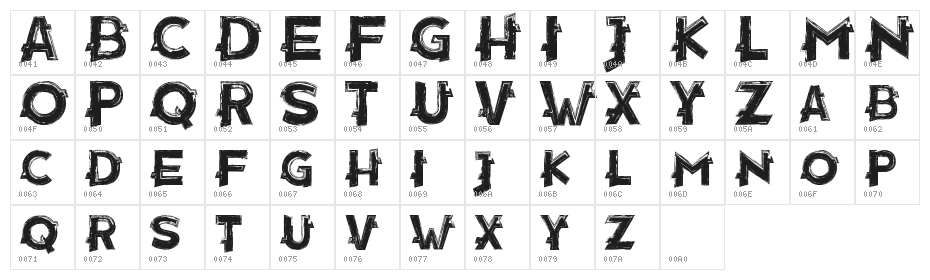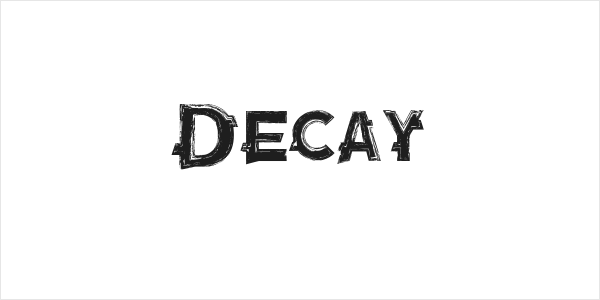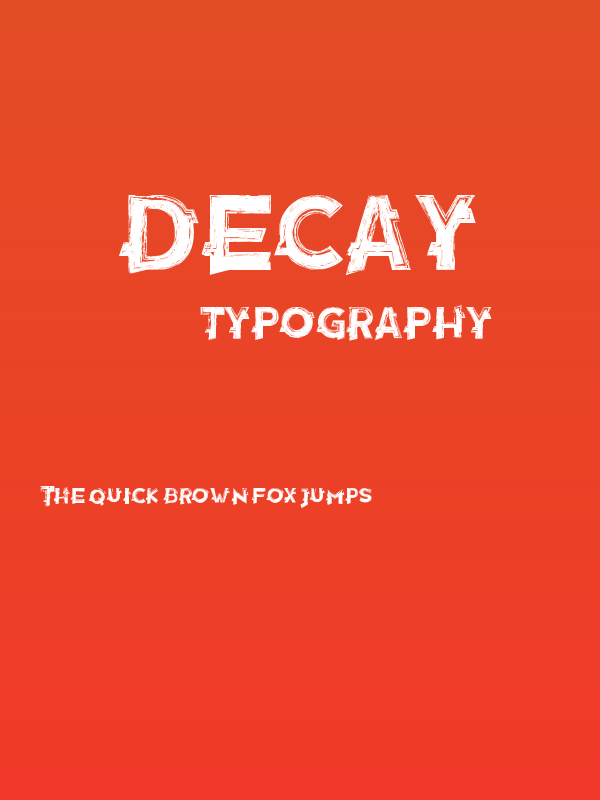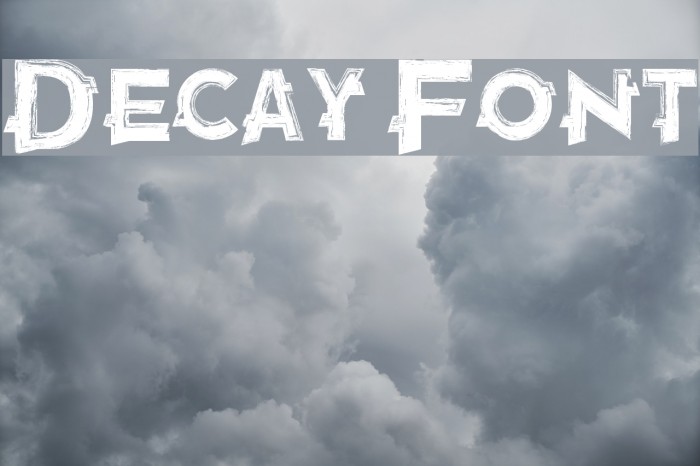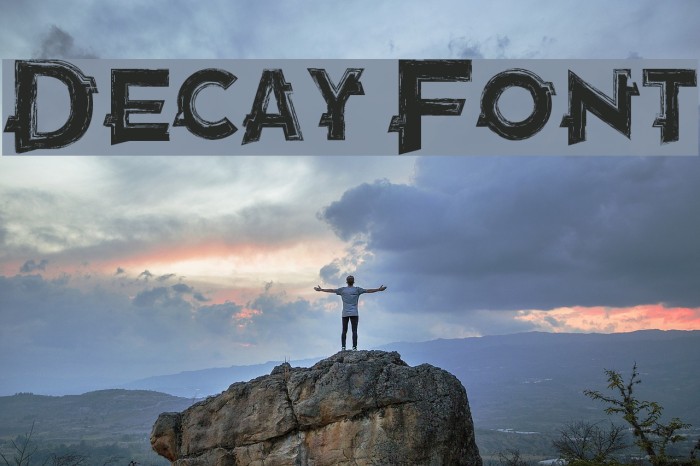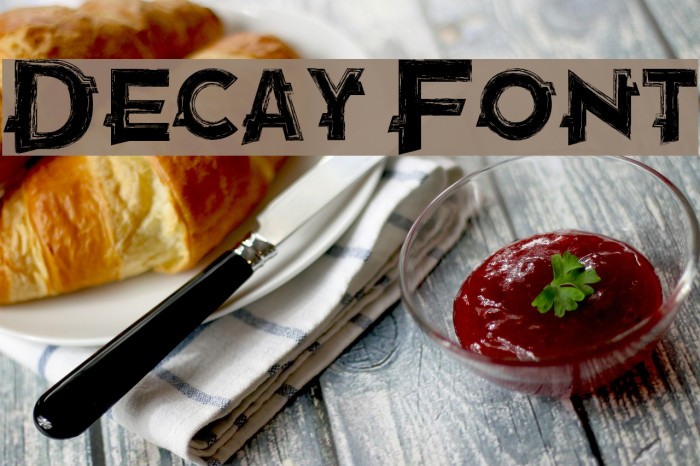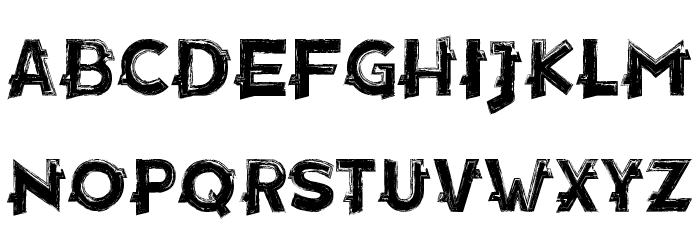
Decay Font
Decay Description
This font features a distressed, grunge style that gives the impression of decay or erosion. The characters are bold and have a rough, textured appearance, with irregular edges and a worn-out look. This design choice creates a sense of ruggedness and raw energy, making it ideal for projects that aim to convey a sense of edginess or rebellion. The uppercase letters are particularly striking, with their bold forms and unique, uneven detailing that adds depth and character. This font is perfect for creating eye-catching headlines or titles that need to stand out with a bold statement.
| Overall Style | Grunge, Edgy, Distressed |
| Proposed Projects | Ideal for music album covers, edgy posters, urban-themed designs, and rebellious branding. |